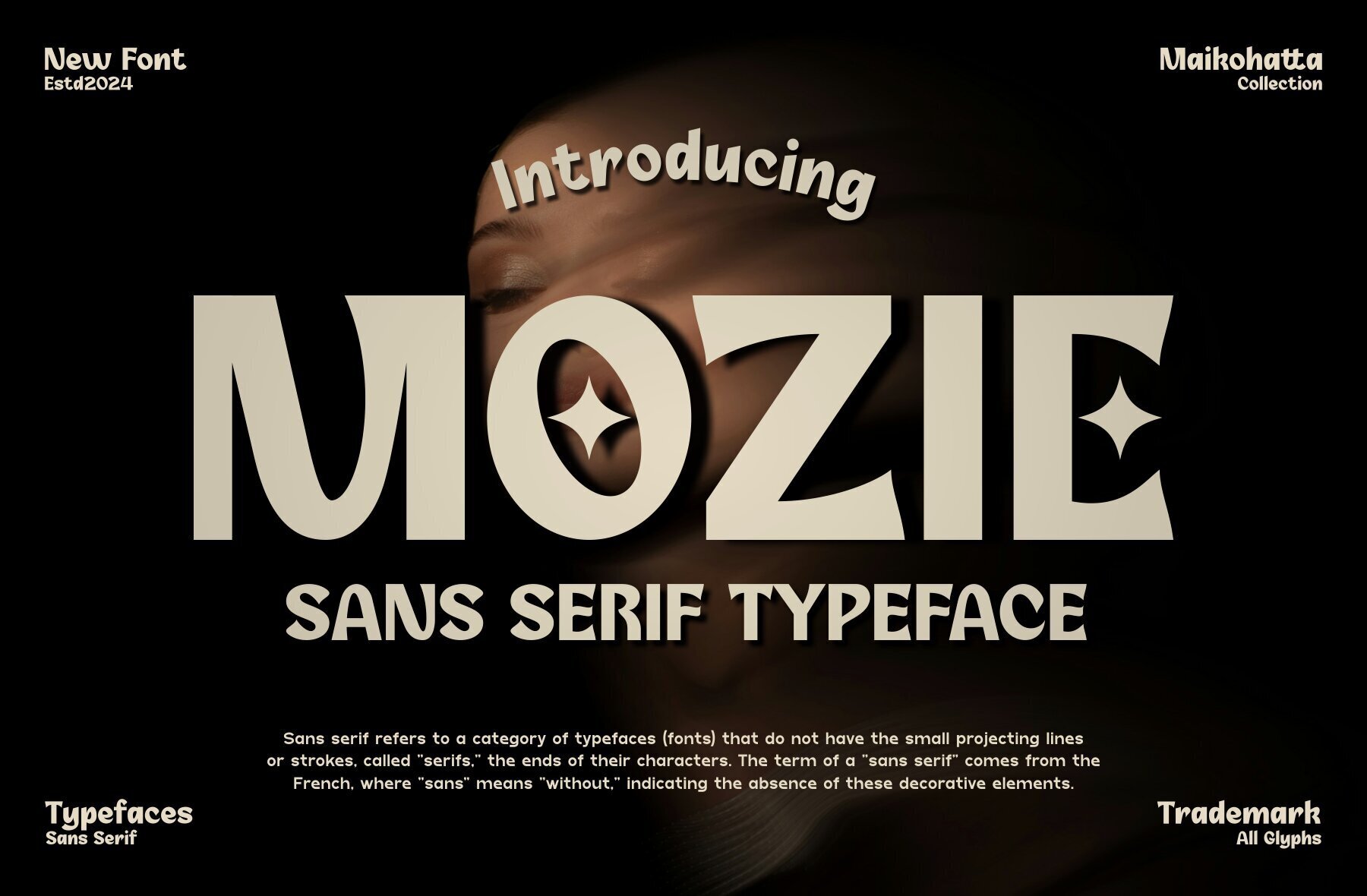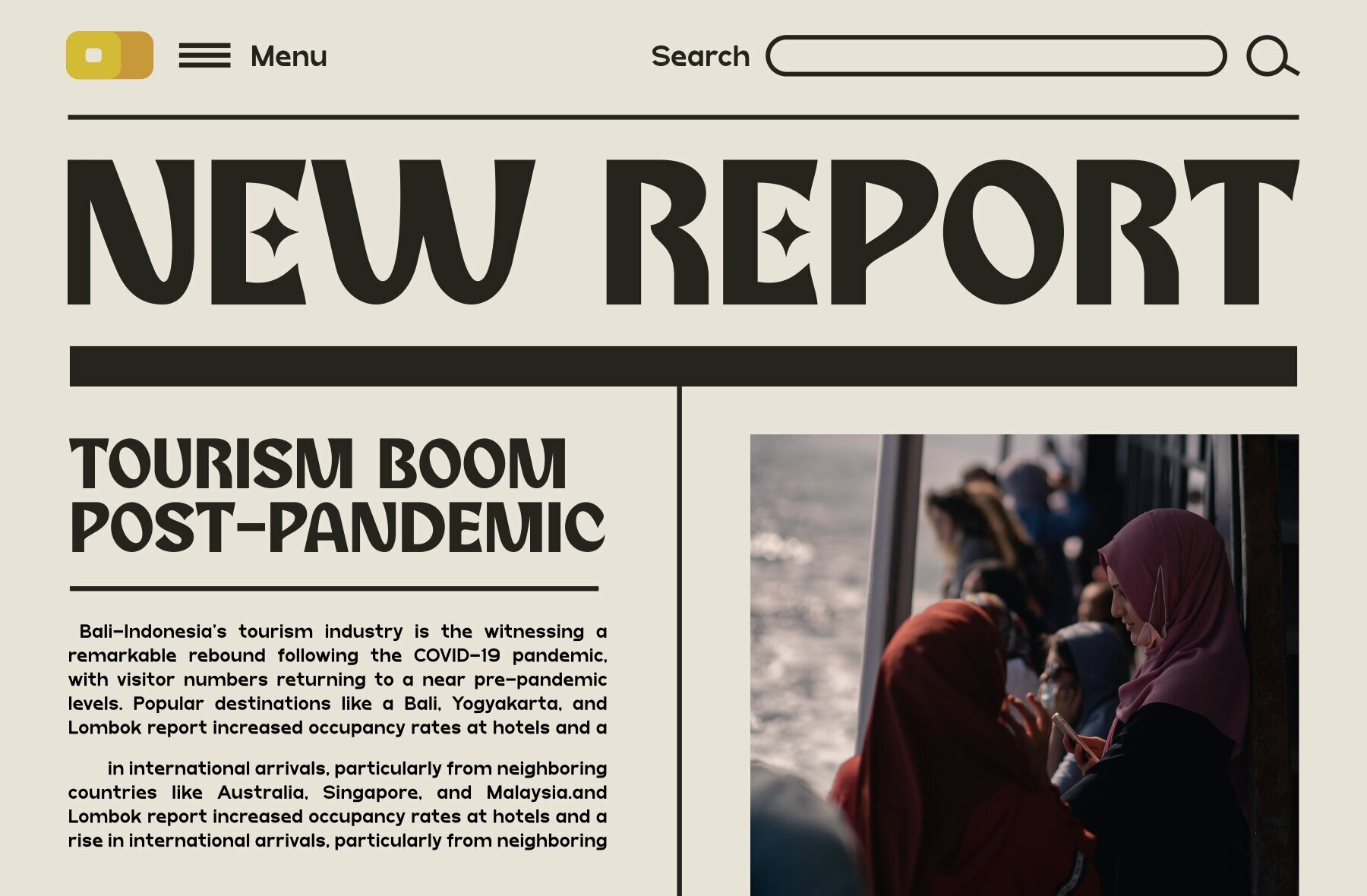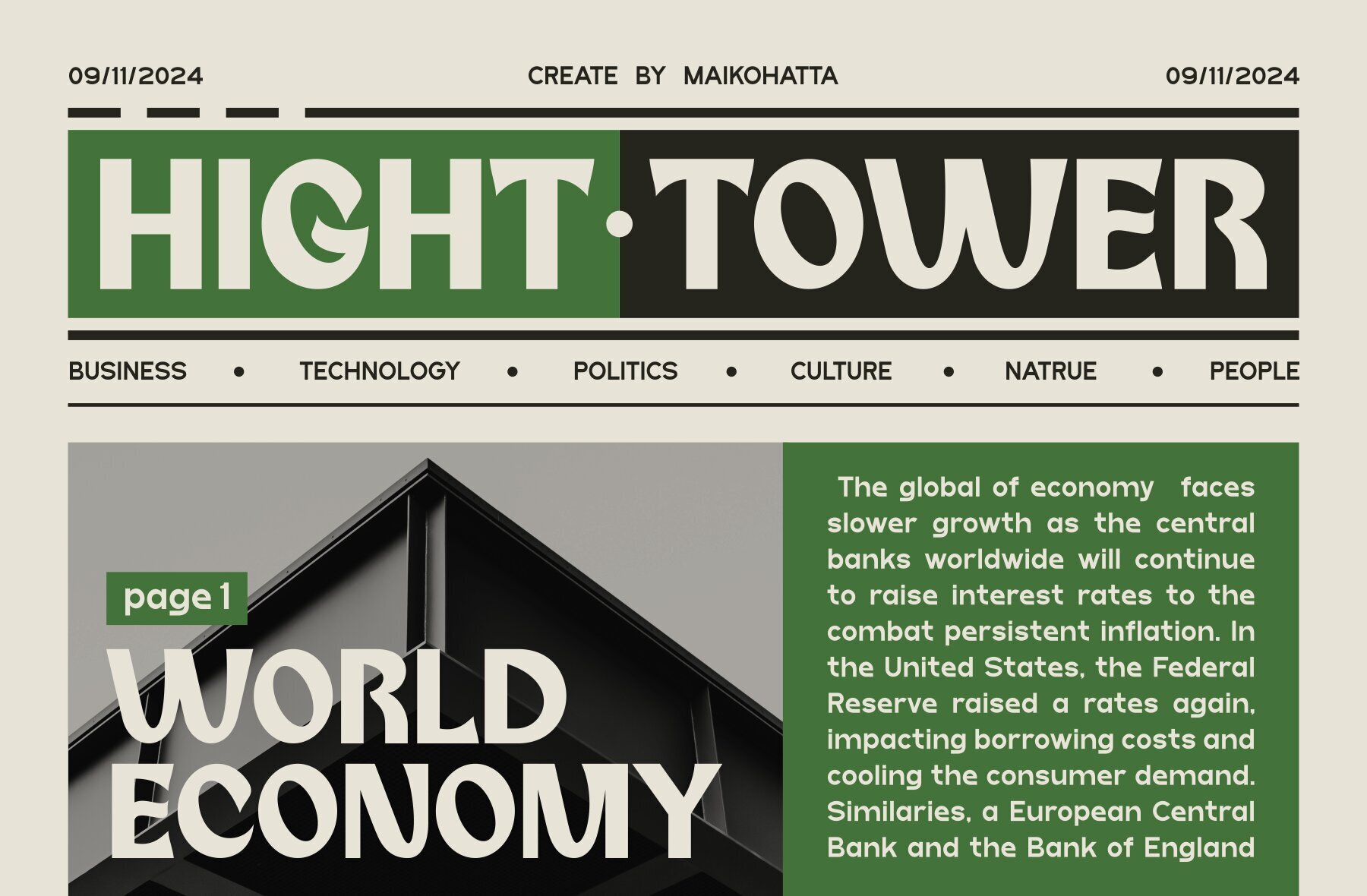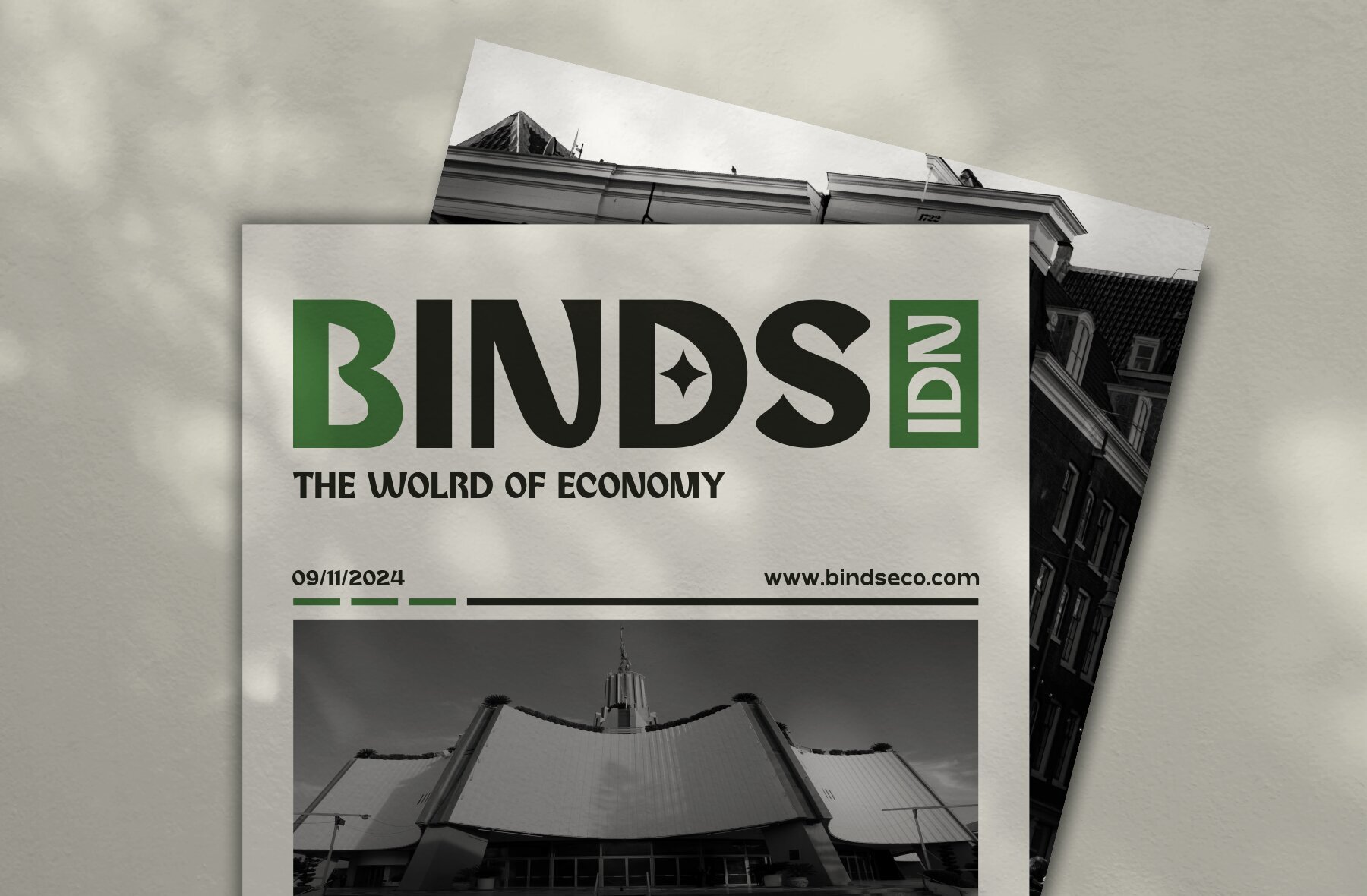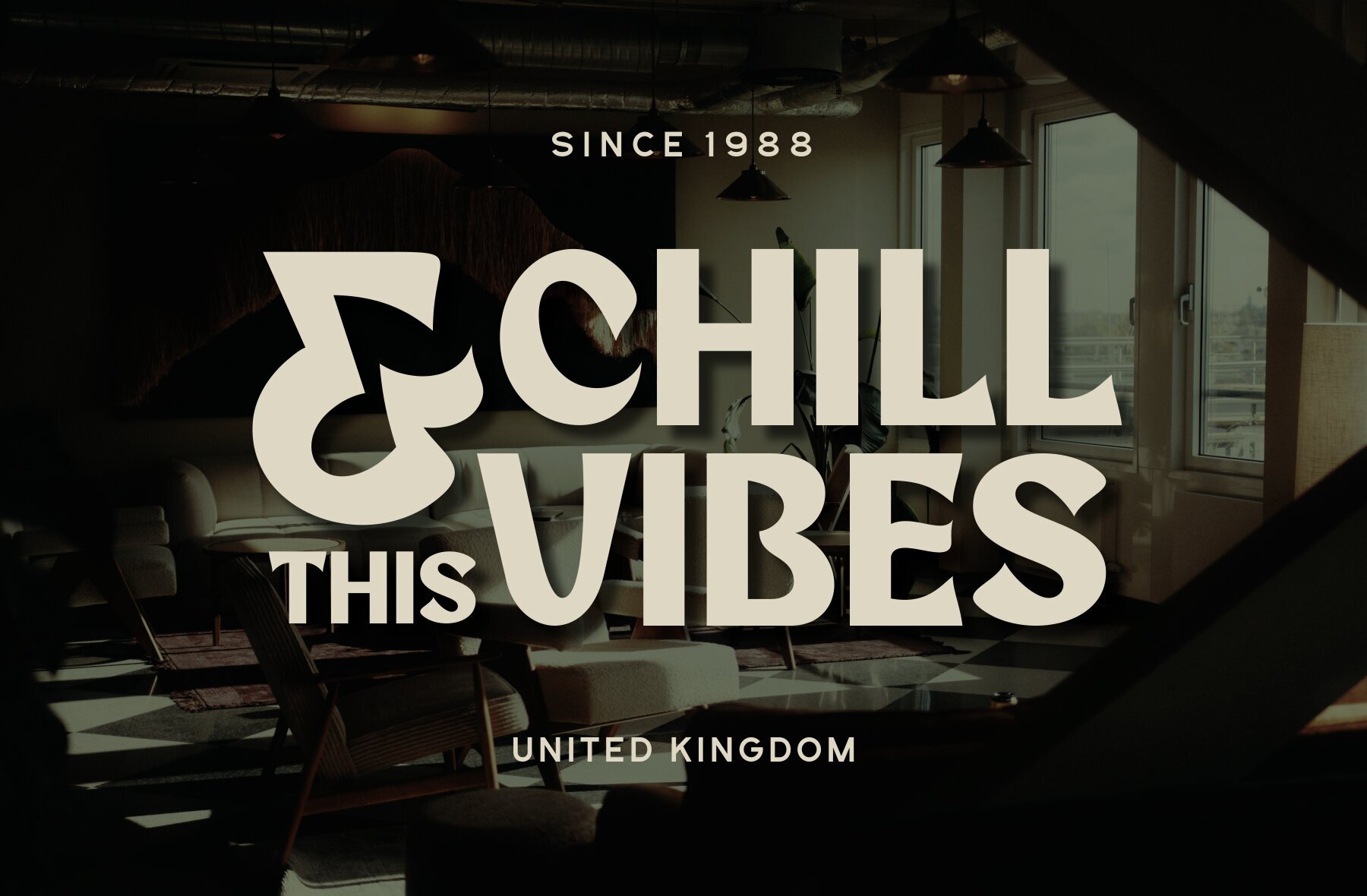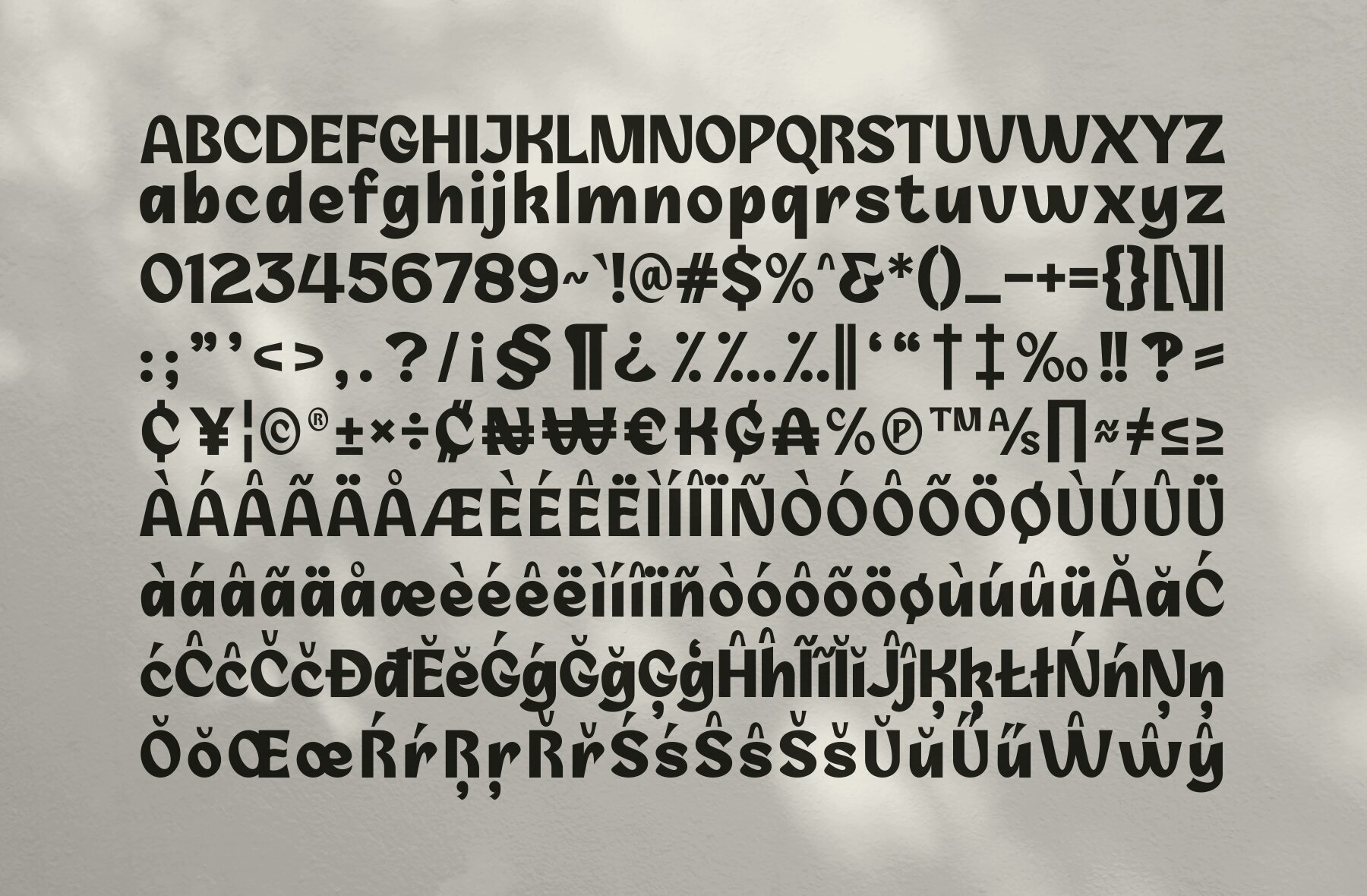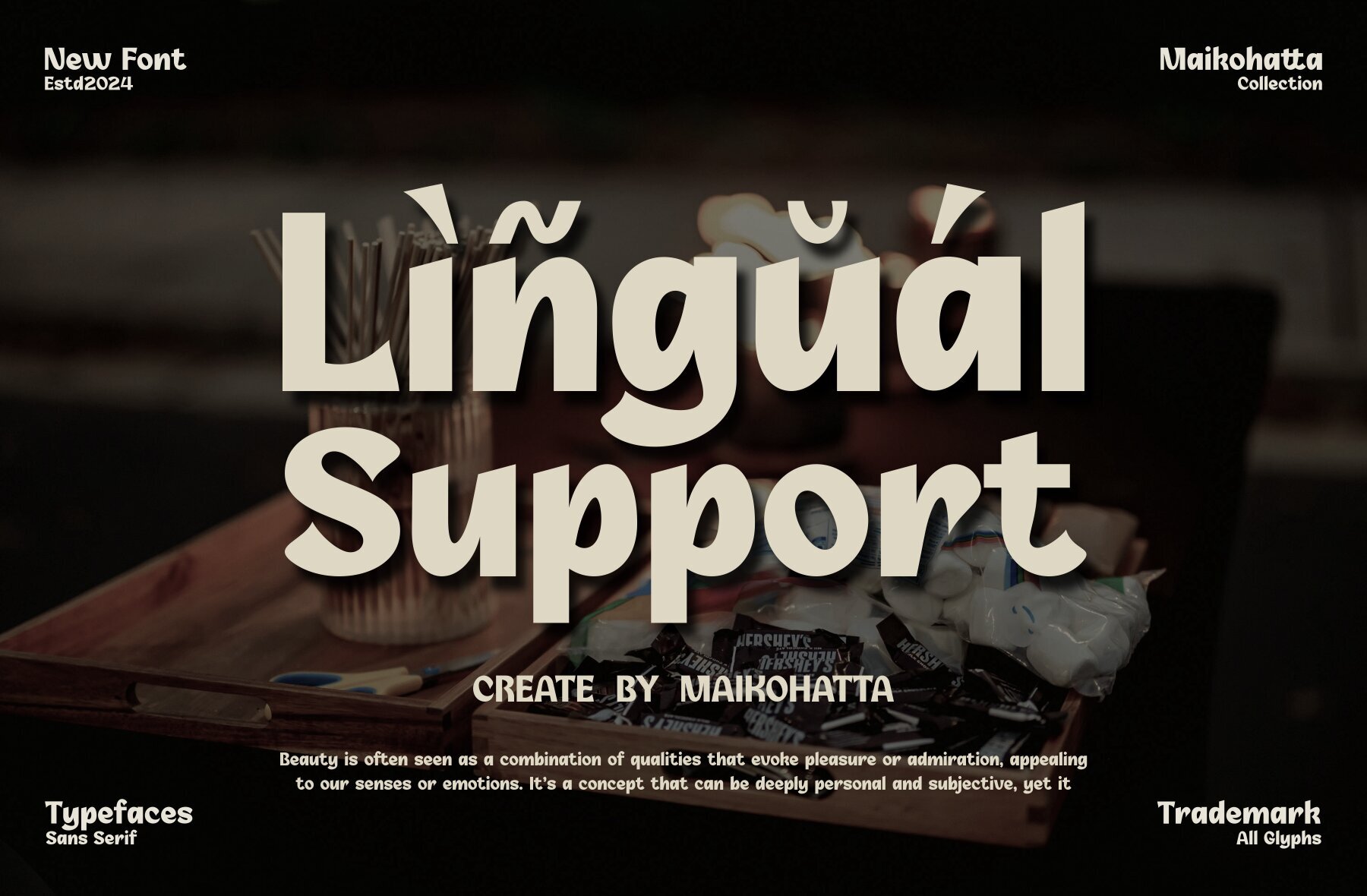
Mozie Font
MOZIE
Mozie is a vibrant sans serif typeface that brings joy and cheerfulness to your design projects. Inspired by the handwritten styles often found in comics and cartoons, this font is perfect for adding a playful and fun atmosphere to your work. Mozie is ideal for poster designs, invitation cards, comics, and promotional materials seeking to engage younger audiences or anyone looking to capture a sense of whimsy.
Mozie offers a comprehensive set of features to enhance your designs, including uppercase and lowercase characters, multilingual support, ligatures, and alternate glyphs. Its versatile design ensures compatibility with a wide range of languages and design needs, making it a go-to choice for adding personality and lightheartedness to your projects.